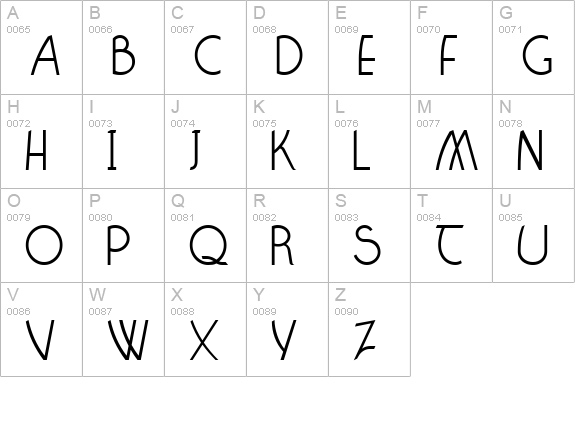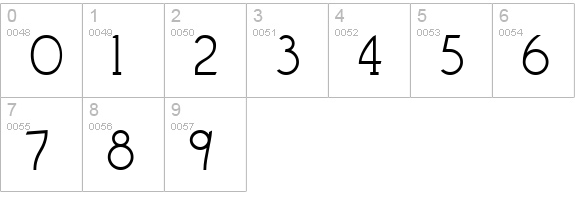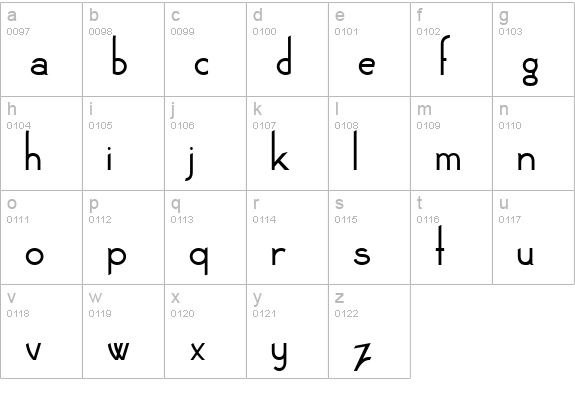
Introducing Claritty font, a modern and elegant typeface designed to bring clarity and sophistication to your projects. With its clean lines and stylish curves, Claritty is perfect for a wide range of design applications, from branding and advertising to editorial and web design. This versatile font exudes a sense of professionalism and refinement, making it ideal for both print and digital projects. The best part? Claritty is available for free download at FontsMarket.com. That's right, you can elevate your designs with this premium font without having to spend a dime. Don't miss out on the opportunity to add Claritty to your font collection and enhance your creative endeavors with its timeless appeal. Download Claritty today and experience the beauty of this exquisite typeface for yourself.